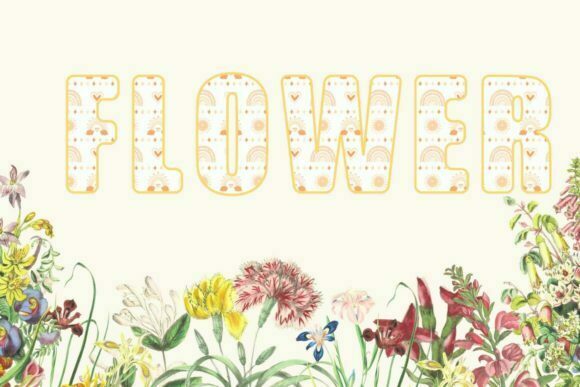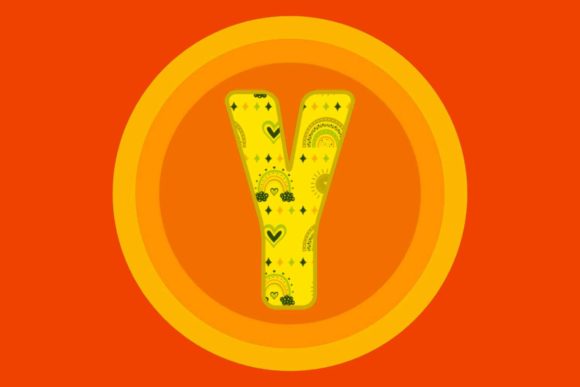
Pastelrain Font
About Pastelrain Font
Pastelrain is a delightful color font adorned with charming illustrations of rainbows, suns, and hearts. This font is designed to infuse your designs with a playful and whimsical touch.
Featuring vibrant and eye-catching elements, Pastelrain adds a pop of color and joy to any project. Whether you’re creating greeting cards, invitations, or digital artwork, this font will instantly uplift the mood and bring a smile to your audience.
Embrace the whimsical beauty of Pastelrain and let it sprinkle your designs with a touch of magic. Explore the possibilities, and watch as this playful font adds a delightful flair to your creative endeavors.